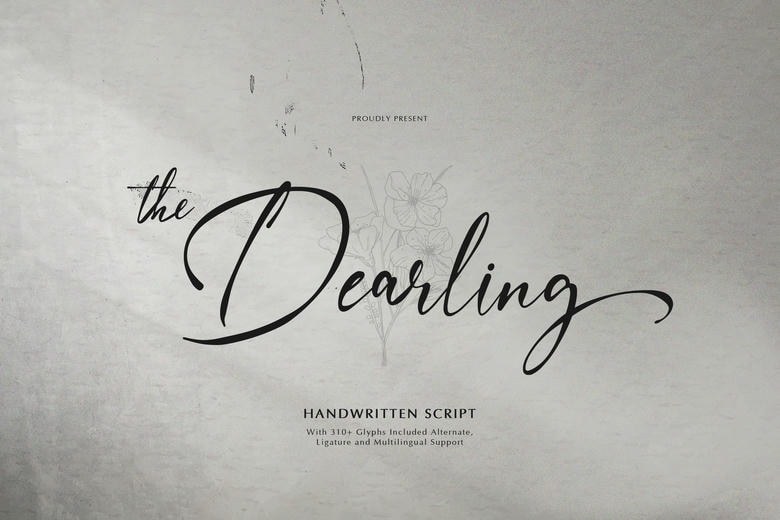
The Dearling Font
The Dearling is a sophisticated handwritten script font with an elegant, feeling and artistic appearance. This font has more than 310 glyphs, with gorgeous alternates and smooth ligatures giving the font versatility and creative freedom on your most romantic and classy designs.
Its fluent lines and gentle curves mean it is ideal wedding and stationery, personal branding, quotes, product labeling and packaging, beauty and labels, invitations, and any other design requiring a written touch of people. The Dearling adds a little bit of class and romanticism to the digital as well as print media, characterized by multilingual support, and the feeling of timeless script.
The Dearling Handwritten Script Font